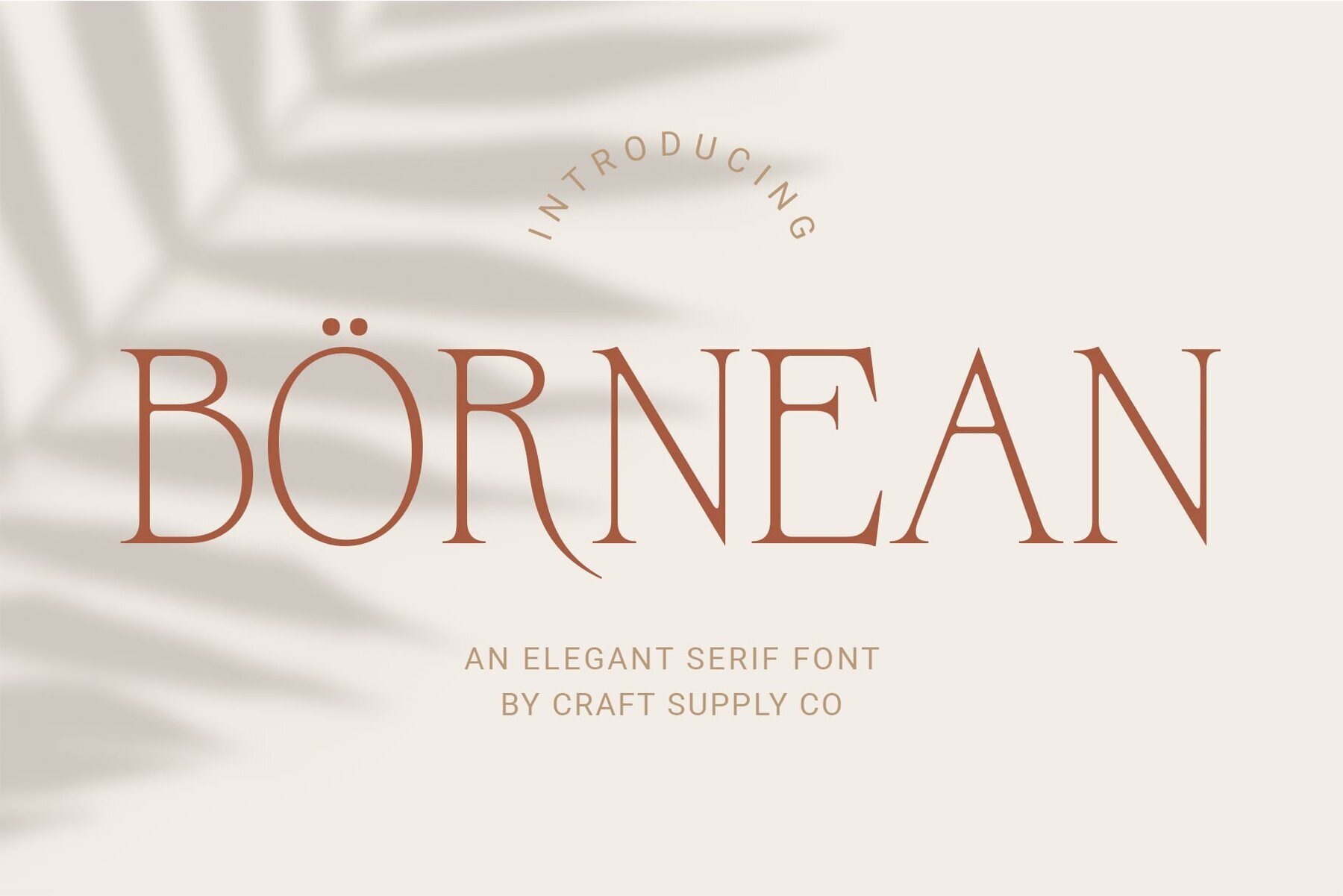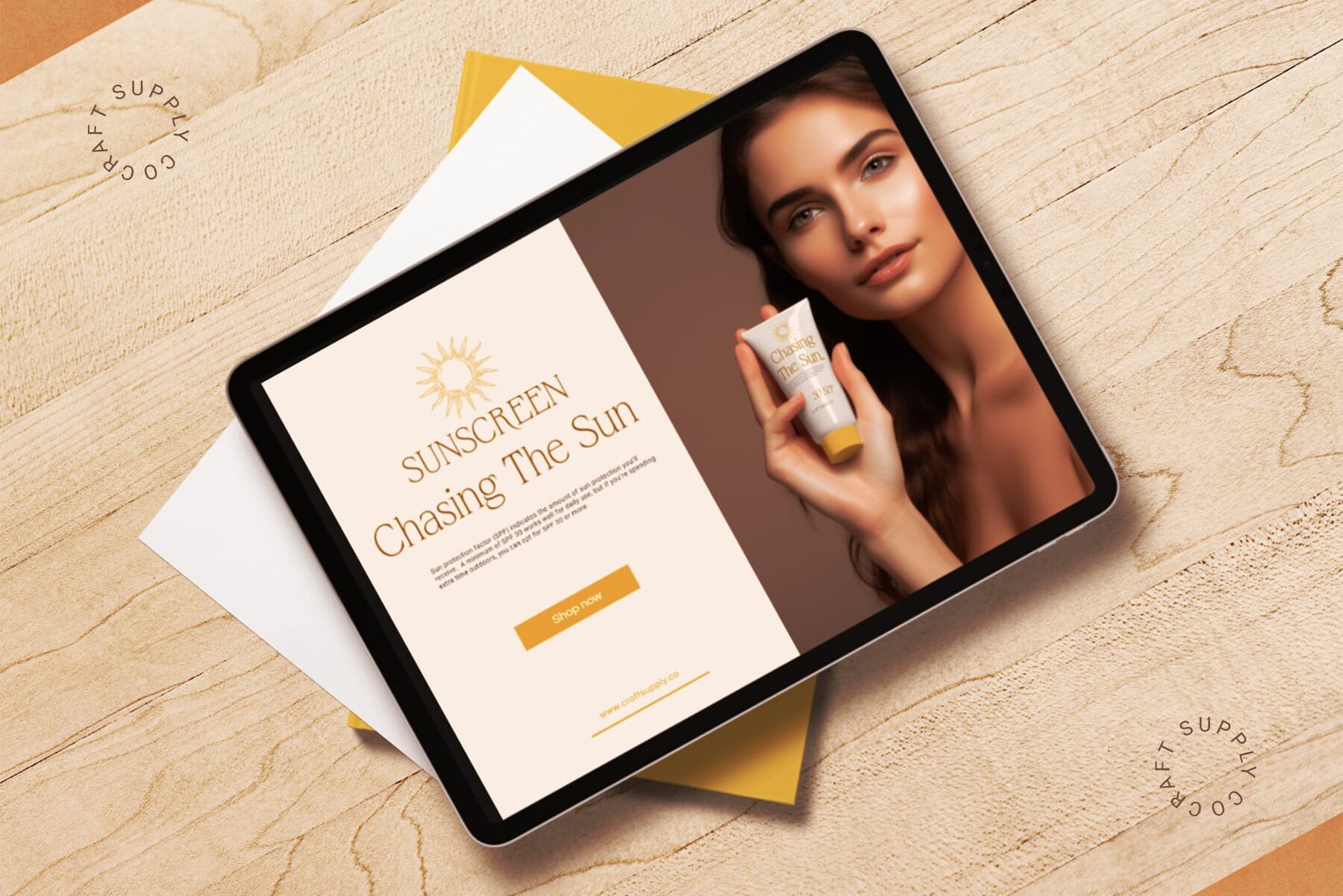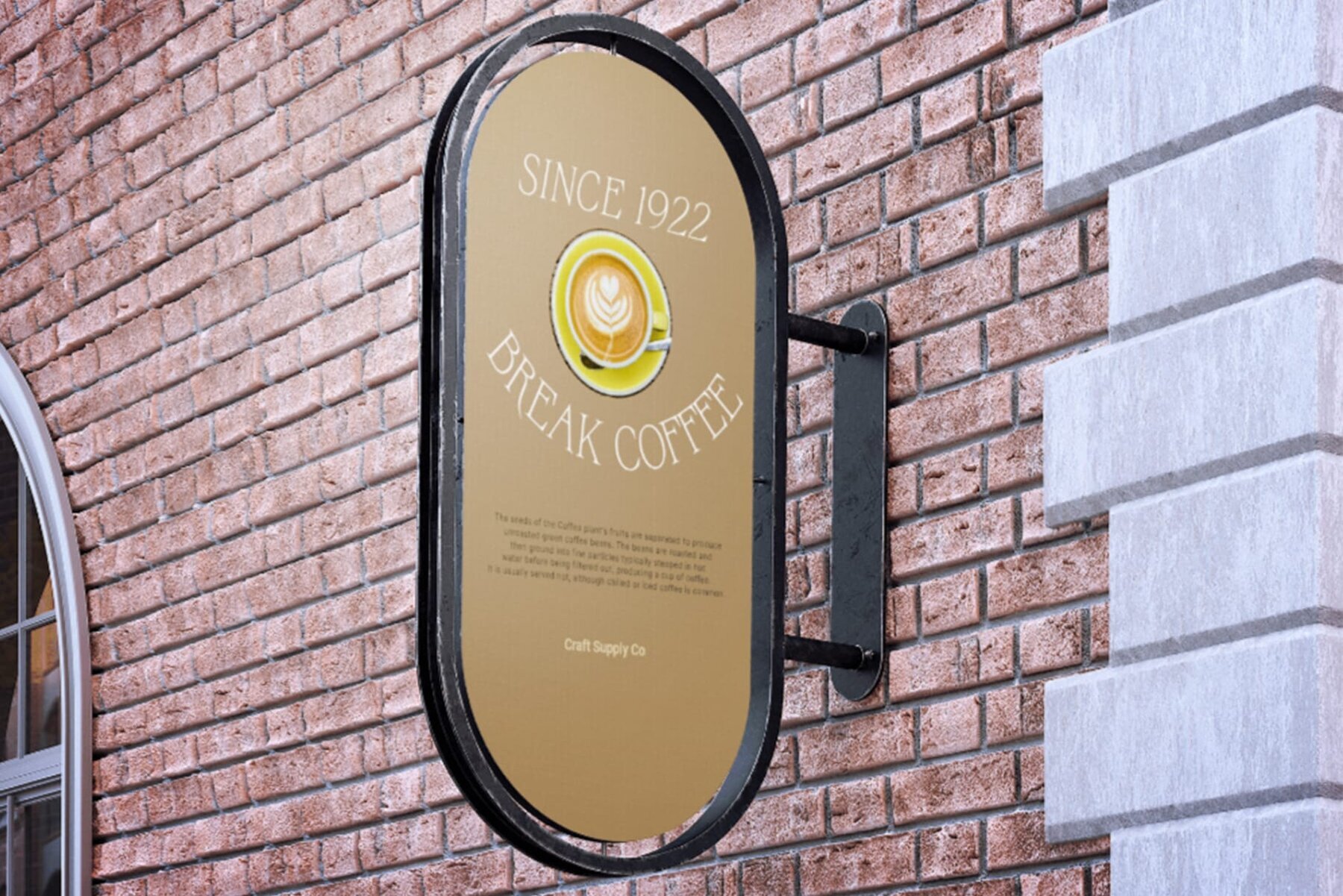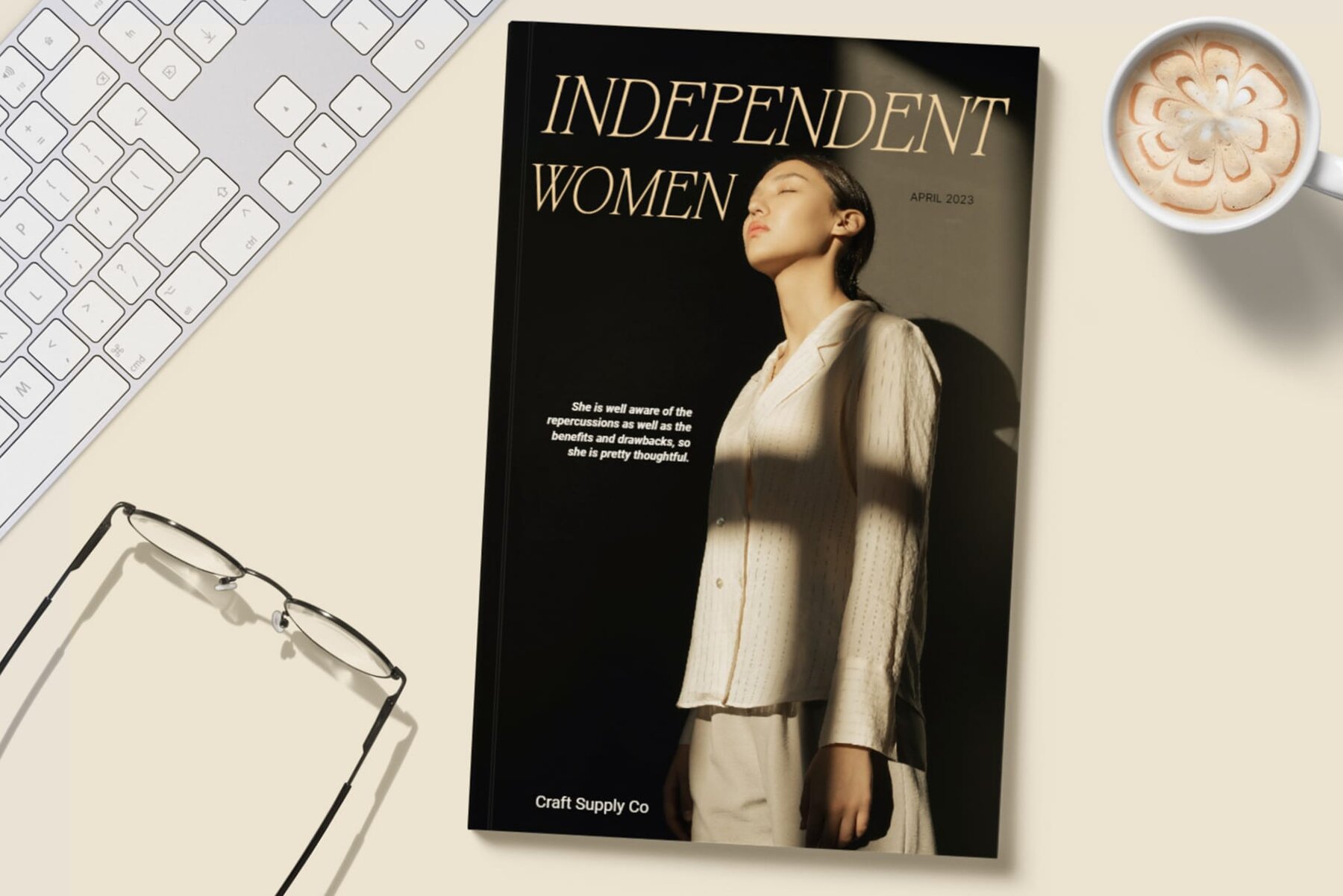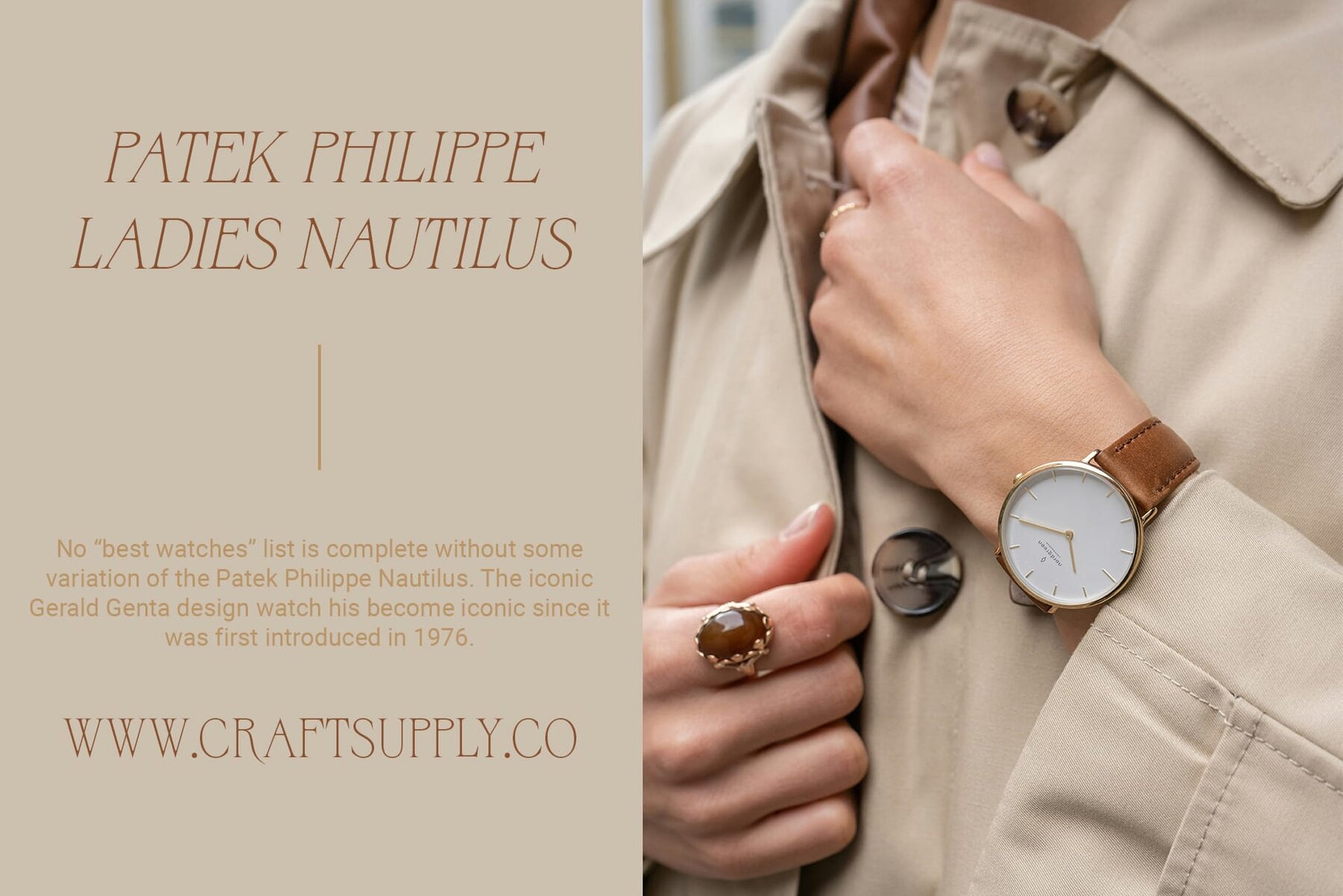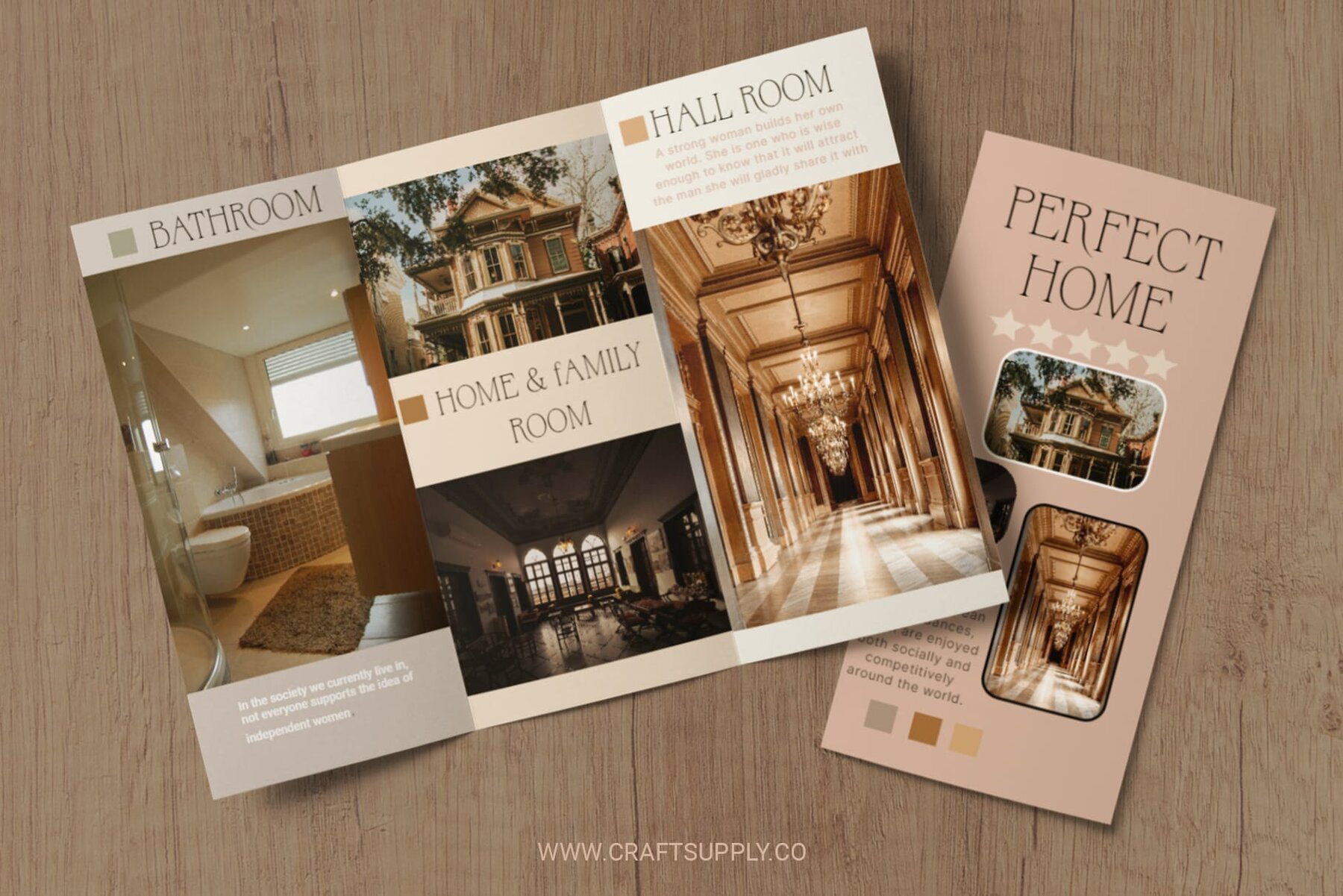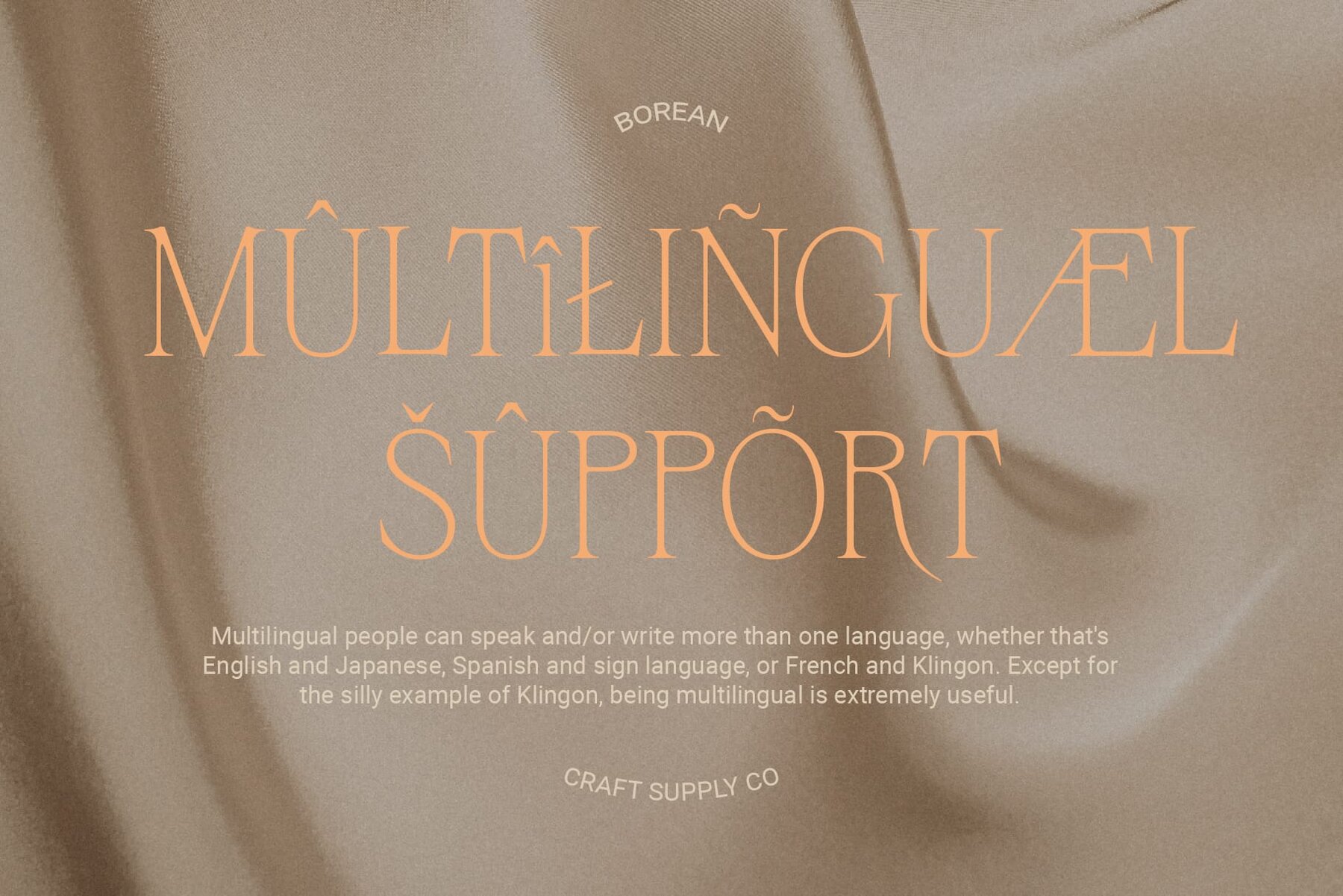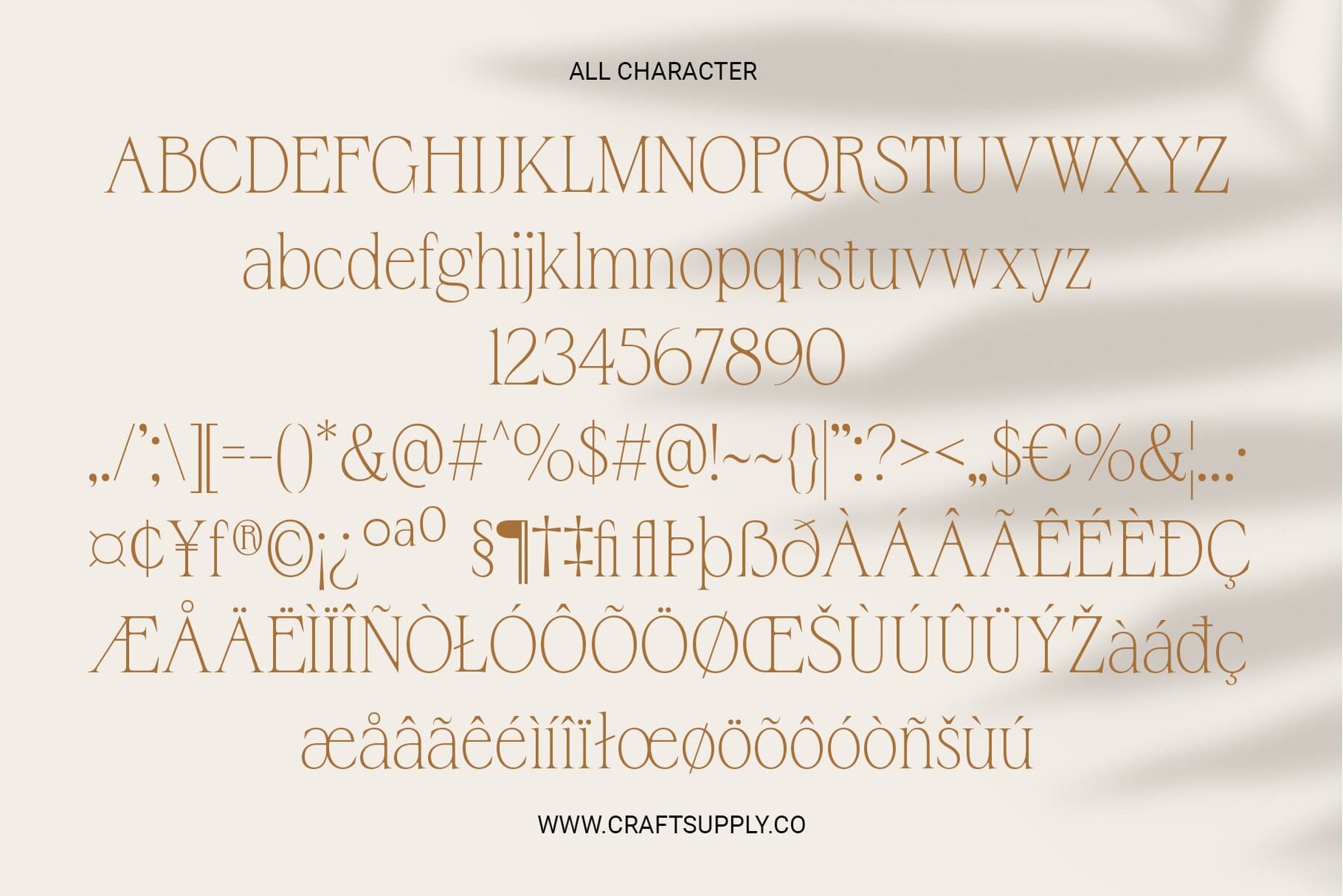
Bornean Font
Bornean exudes an air of timeless elegance, characterized by its refined serif design. Each letter is meticulously crafted to convey sophistication and grace. Tailored for various design applications, Bornean is particularly well-suited for fashion-related projects. Its elegant appearance adds a touch of luxury and style to branding, editorial layouts, and more. Beyond fashion, Bornean finds its place in a wide range of design contexts. From luxury branding to high-end publications, its elegant serif style elevates any visual composition with understated sophistication. Bornean seamlessly integrates into diverse design projects, complementing the aesthetics of fashion brands, lifestyle magazines, and upscale products. Its elegant demeanor captivates audiences and leaves a lasting impression. Bornean stands as a testament to the timeless allure of elegant serif typography. With its refined appearance and versatile application, it effortlessly enhances the visual identity of fashion brands and beyond, embodying sophistication in every stroke. You can use this typeface without needing any specialized software. If you have any inquiries or need assistance, please feel free to contact us. We appreciate your support in enhancing your creative projects!Bornean Font: Embodying Elegance in Serif Typography
Perfect for Fashion and Beyond
Versatile Usage
Seamless Integration
Elegance Meets Versatility